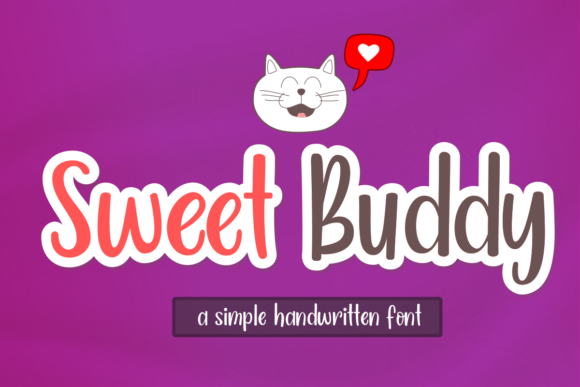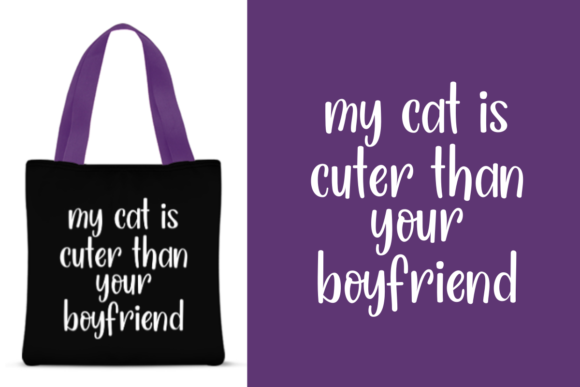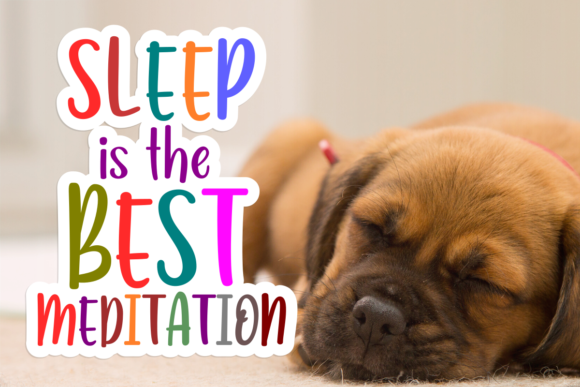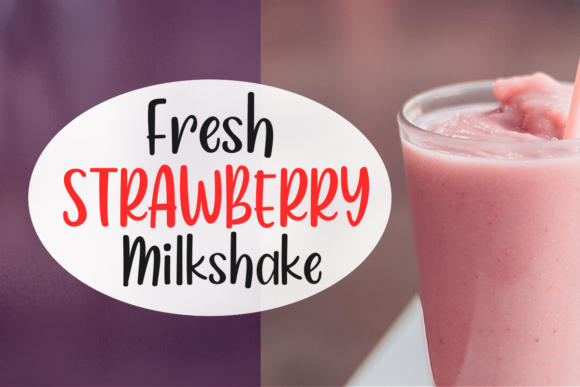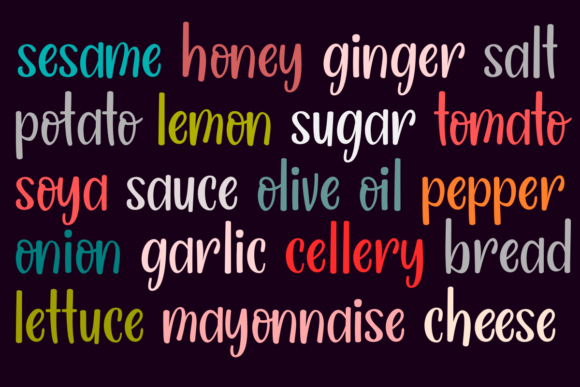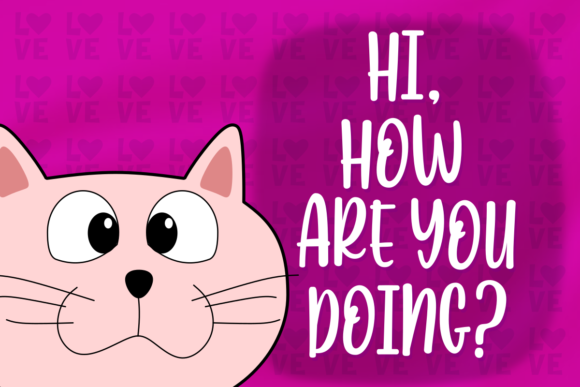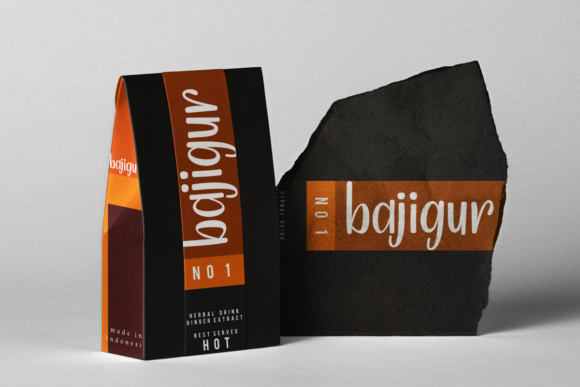
Sweet Buddy Font
About Sweet Buddy Font
Sweet Buddy is a cute and round lettered handwritten font. Its neat and cursive style makes this font fit for a wide range of contexts. Add this colorful font to each of your creative ideas and notice how it makes them come alive!